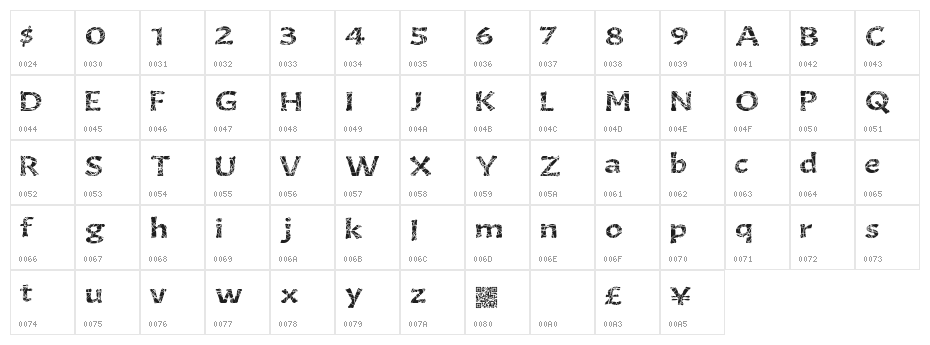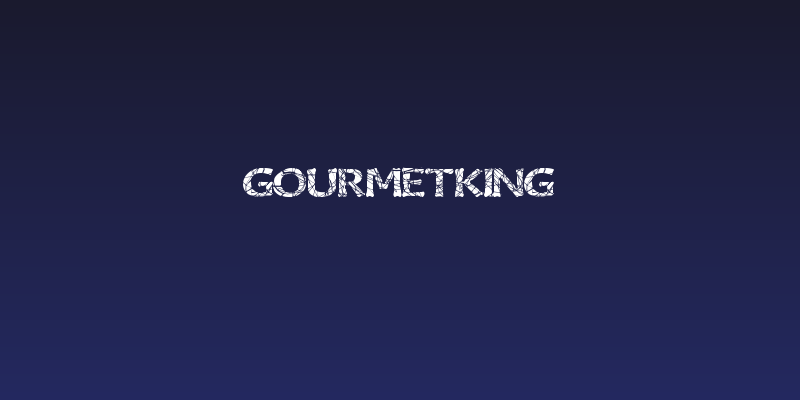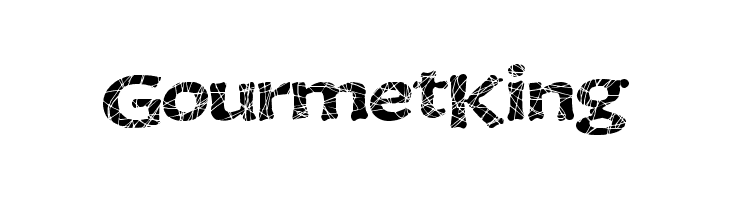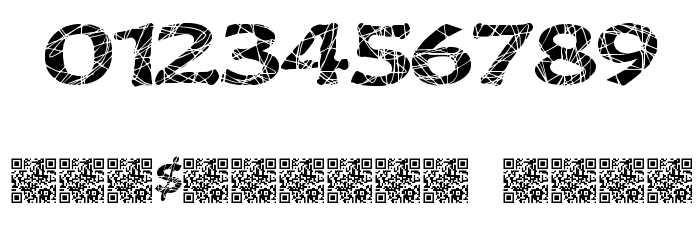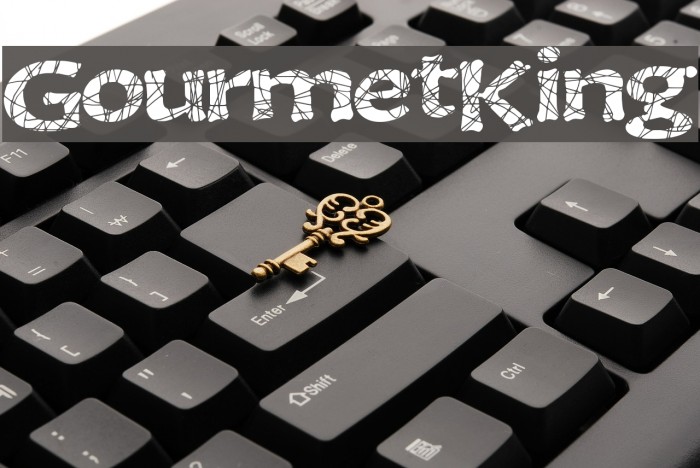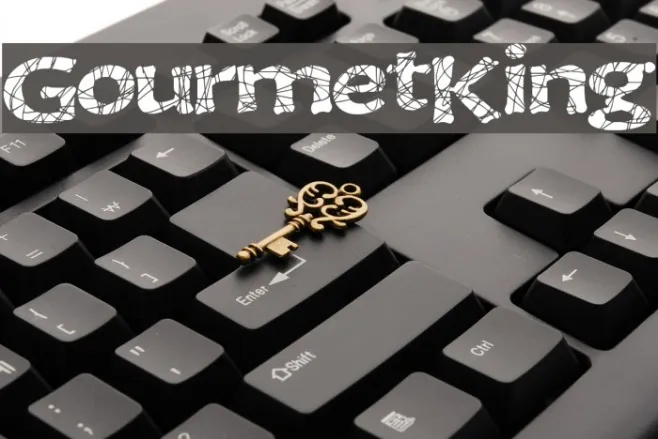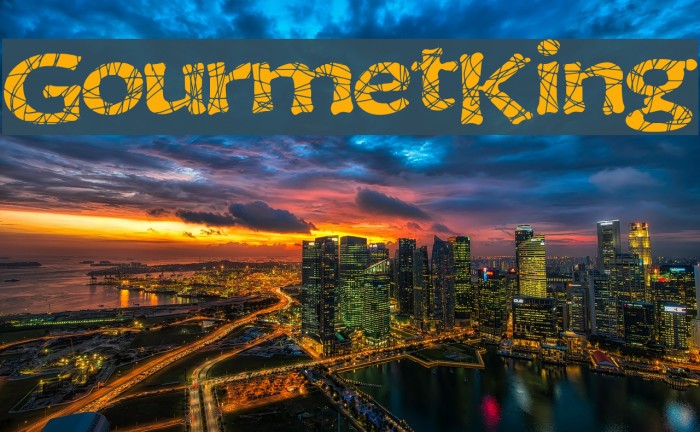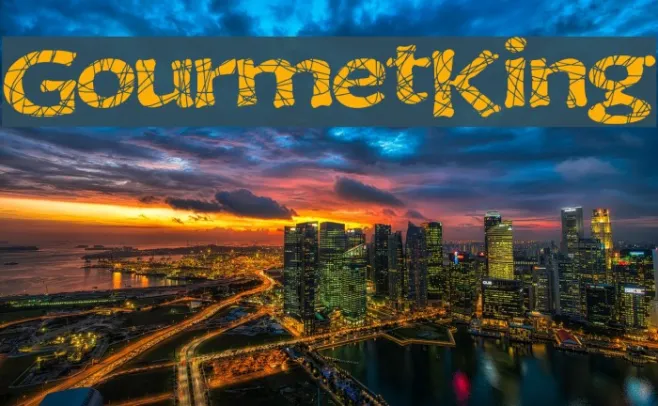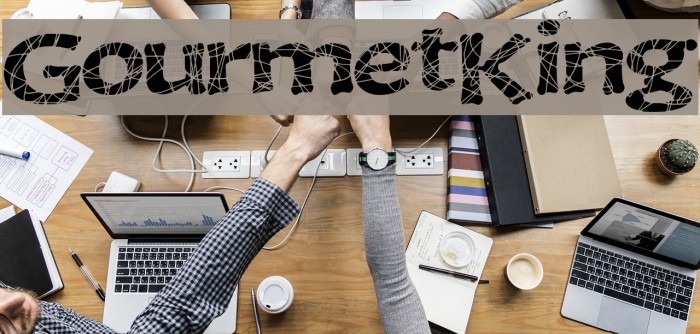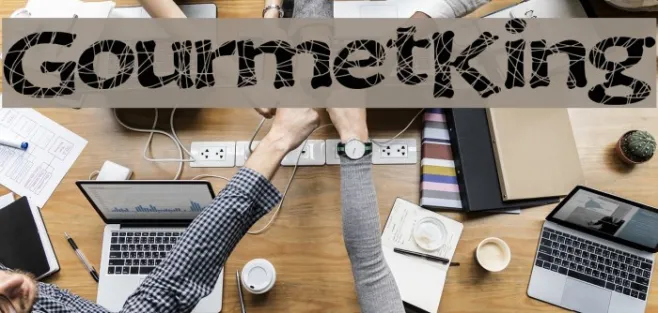
GourmetKing Font
GourmetKing Description
This font features a unique, decorative style with a web-like pattern overlaying each character. The intricate design gives it a textured appearance, making it stand out as a display font. The uppercase and lowercase letters maintain a consistent style, with the web pattern creating a sense of depth and complexity. The numbers and special characters are equally detailed, ensuring uniformity across all glyphs. This font is ideal for projects that require a bold and artistic touch, such as posters, album covers, or branding materials that aim to capture attention with a distinctive visual flair.
| Proposed Projects | Posters, album covers, branding materials, artistic displays. |